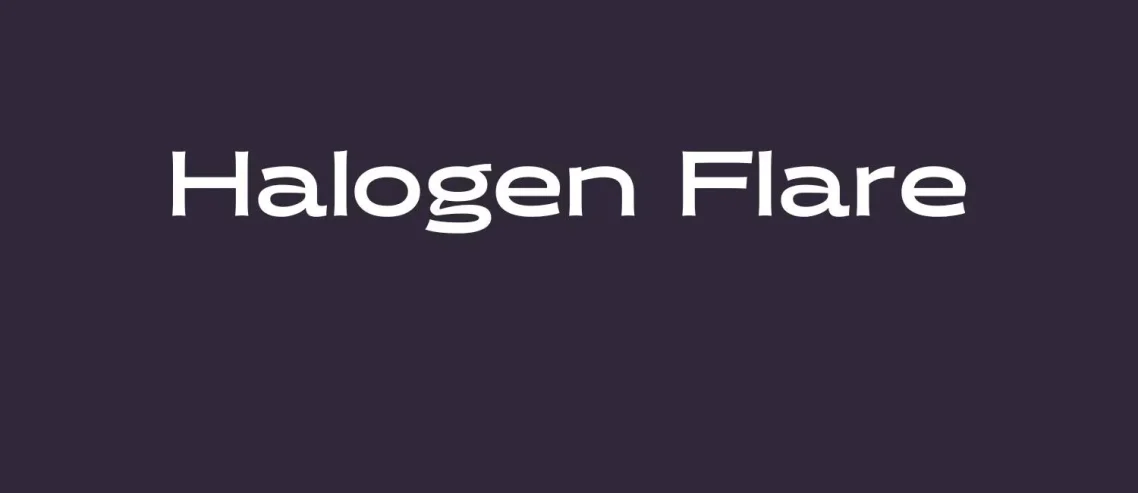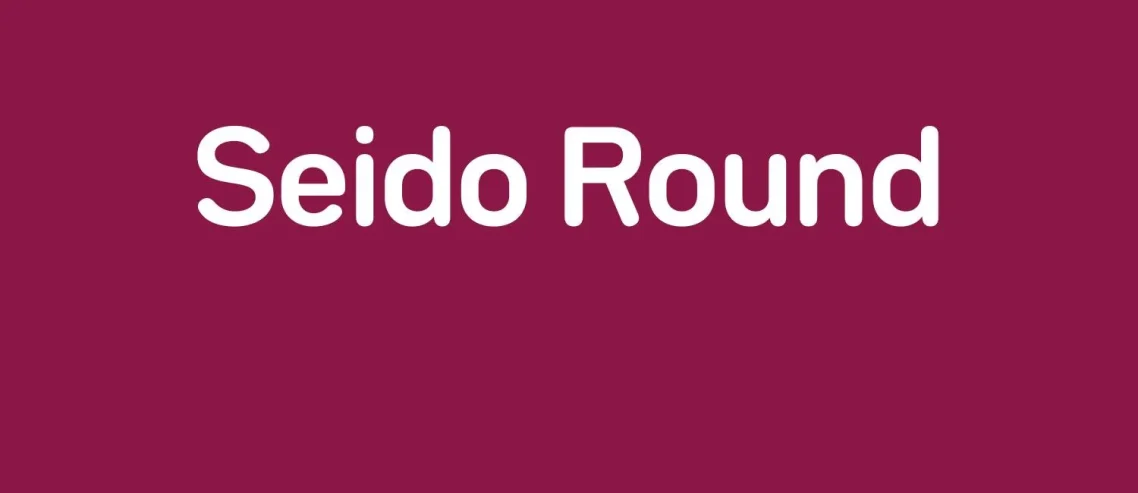
Seido Round Font Free Download
Crafted by Ray Larabie, Seido Round Font falls under the sans-serif category, reflecting a modern and friendly vibe. Ray Larabie, a renowned typeface designer, is celebrated for his diverse creations. The Seido Round Font, with its rounded edges, exudes approachability, making it a perfect choice for various design applications. Its clean lines and contemporary aesthetic …
Kaligrafi Font
The Kaligrafi font typeface may also come in fonts of many American typewriter fonts, from ultra-light to greater-formidable or black; 4 to six weights are not unusual, and some typefaces have as many as a dozen. If no ambitious weight is supplied, many renderers (browsers, word processors, picture and DTP programs) help fake a bolder …
Familiar Pro Font Free Download
Familiar Pro Font, designed by Paul Barnes and Christian Schwartz, is a sophisticated and versatile typeface falling under the category of transitional serif fonts. Known for its classic proportions and clean lines, this font is often chosen for editorial design, books, and high-end print materials. Familiar Pro Font’s timeless elegance and readability contribute to its …
Bauhaus Font Free Download
The Bauhaus font was created by Herbert Bayer in 1925 and is named after the Bauhaus art school in Germany. It is a simple, geometric sans-serif typeface that is perfect for use in headlines and titles. If you’re looking for a clean, modern font to use in your next design project, the Bauhaus font is …
Stingo Digital Font
Stingo digital font is a gruesome sans-serif typeface launched in 2010 via colophon, an impartial kind foundry installation by way of the UK-located studio the entente. you may use it everywhere you need. Colophon describes apercu as an amalgamation of its Johnston, Proxima nova, Avenir Neuzeit and franklin gothic. The layout is just like Scott …
Halogen Flare Font Free Download
Halogen Flare Font is a contemporary and dynamic typeface designed by Jon Swinn. Falling under the sans-serif category, it is known for its bold and geometric shapes, making it suitable for modern and eye-catching designs. Halogen Flare Font is often used in logos, headlines, and promotional materials where a bold and impactful appearance is desired. …